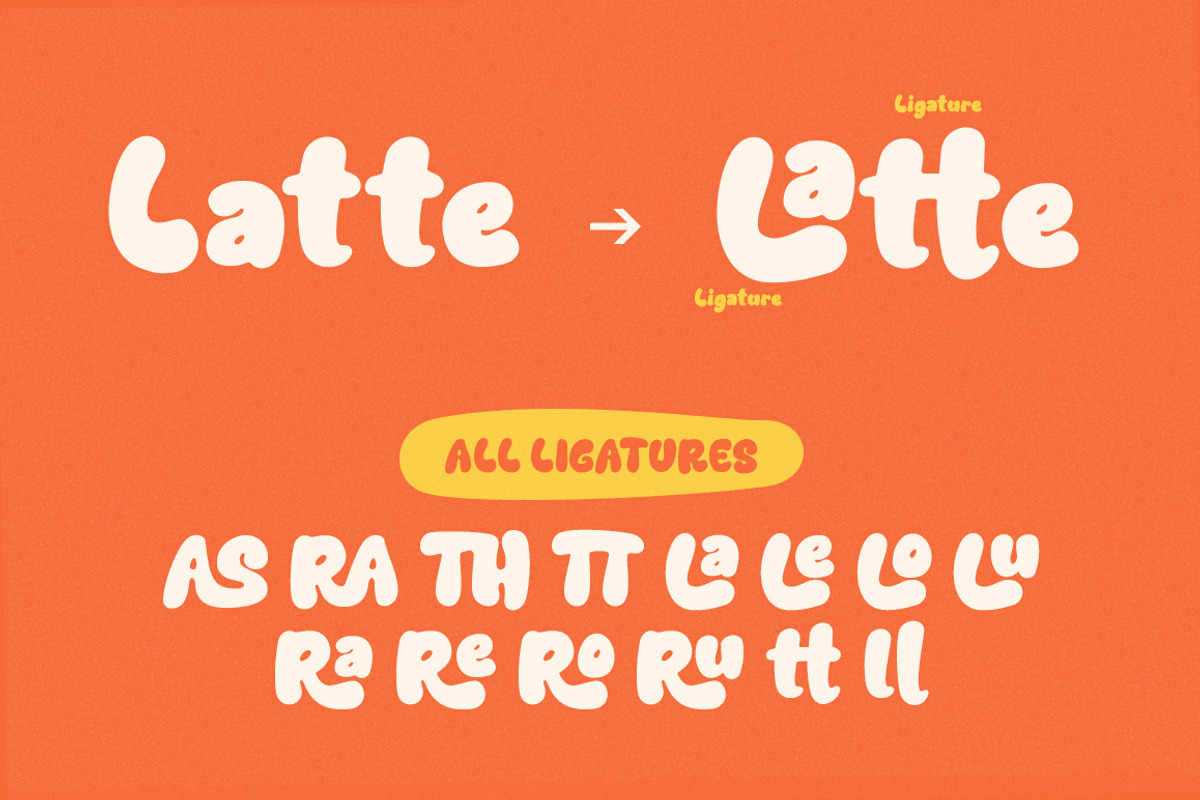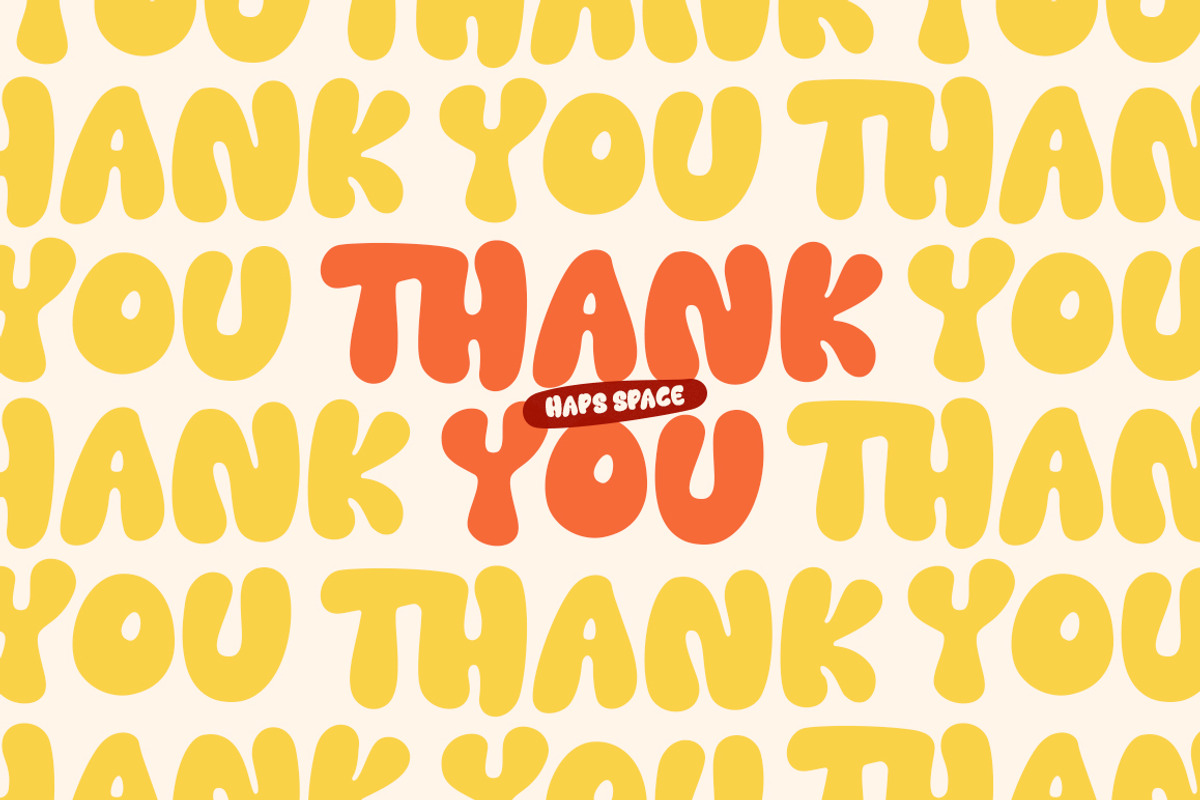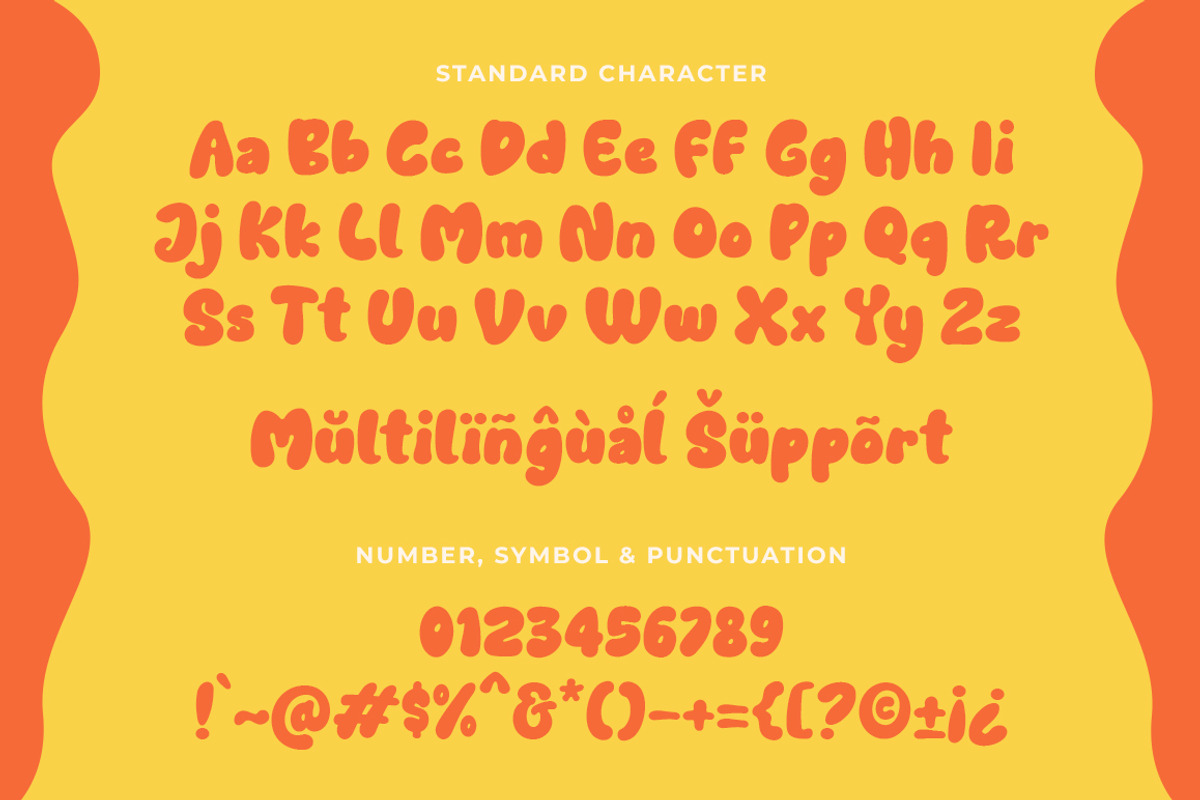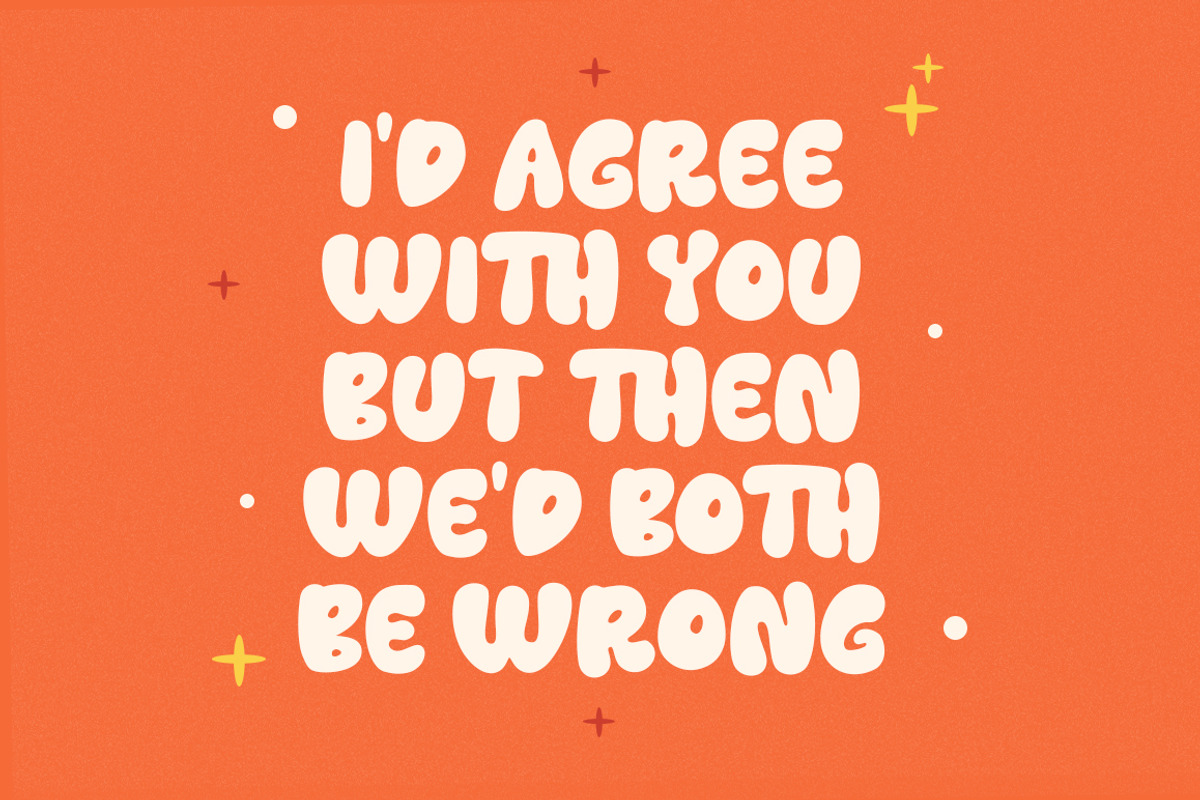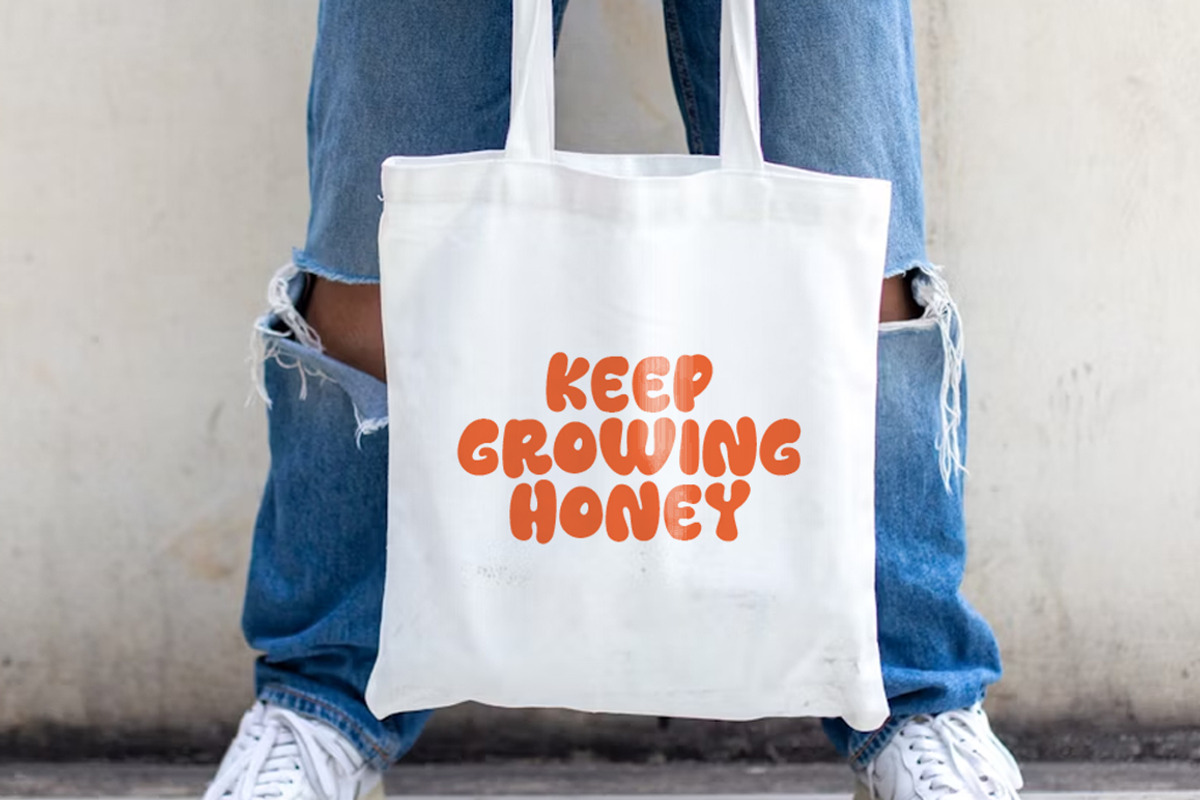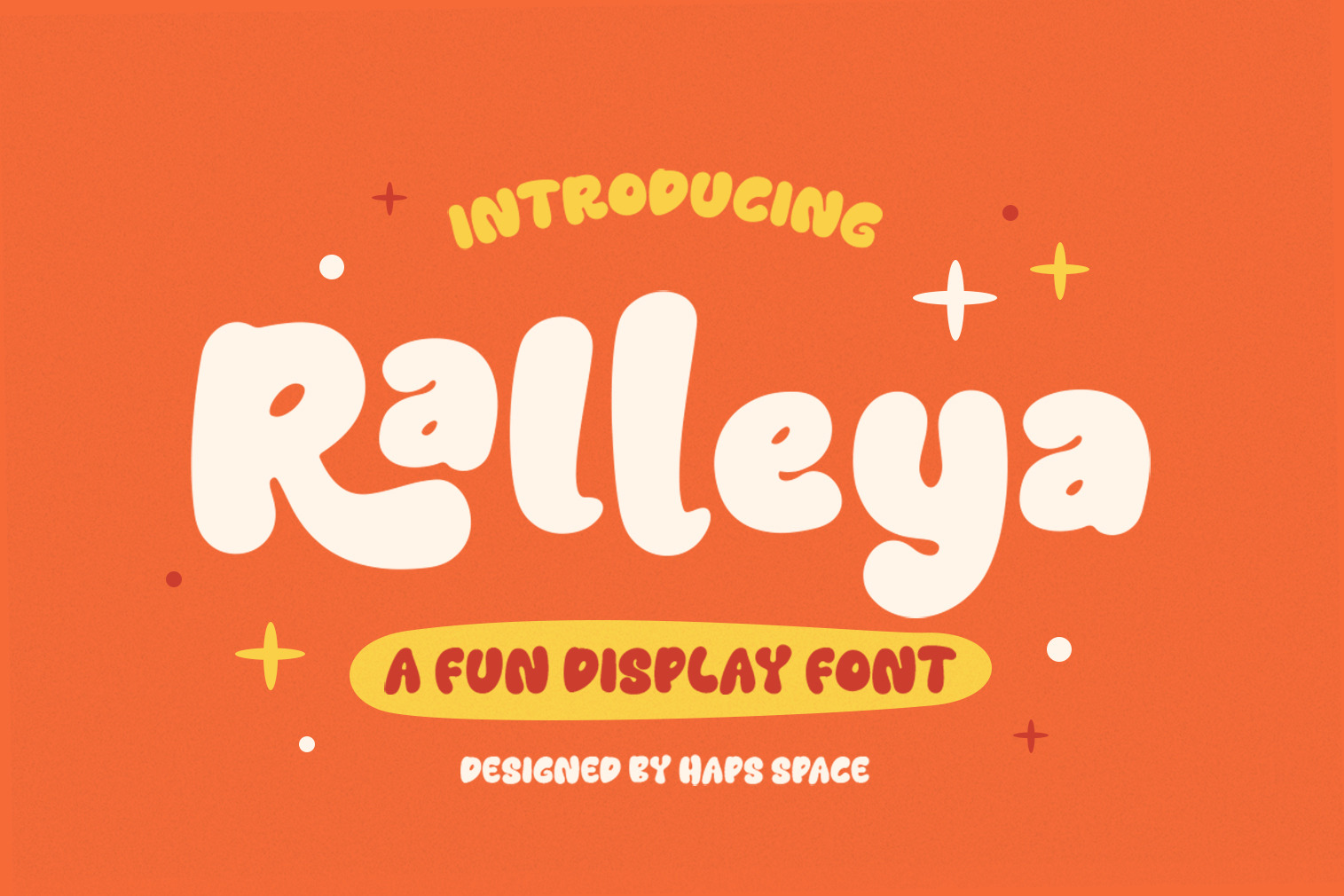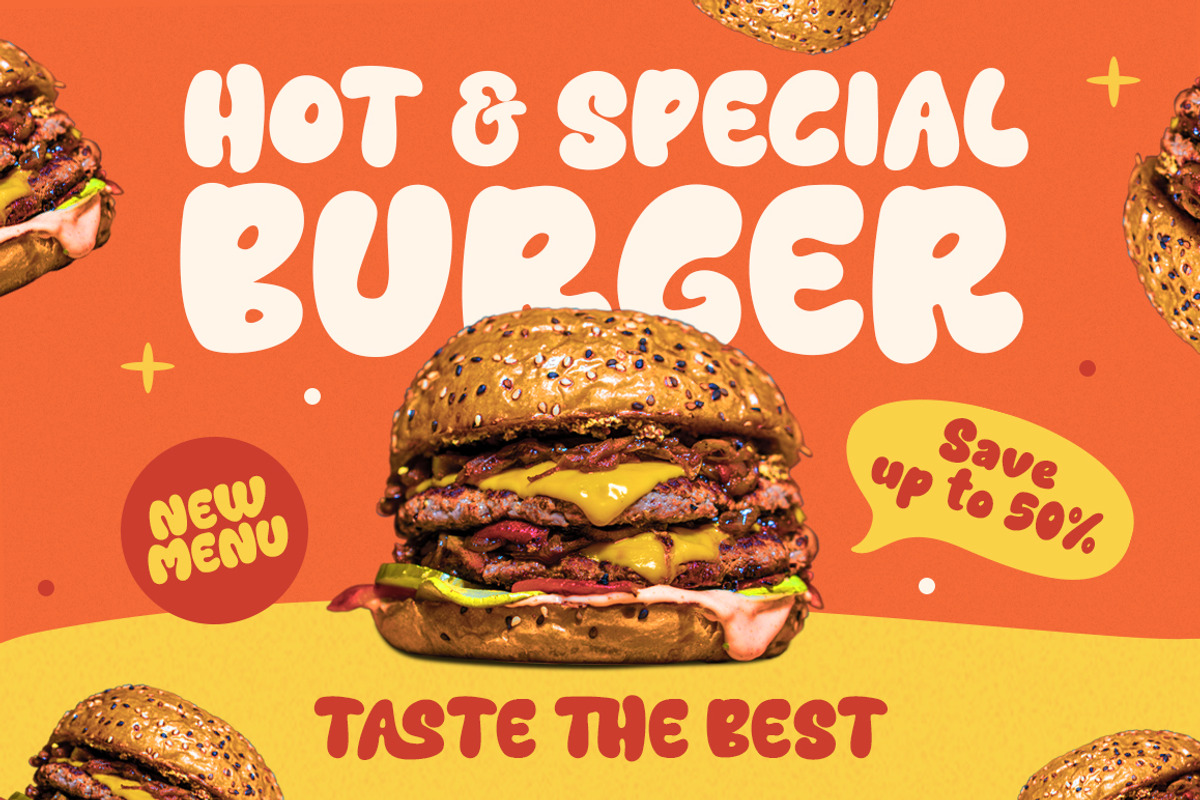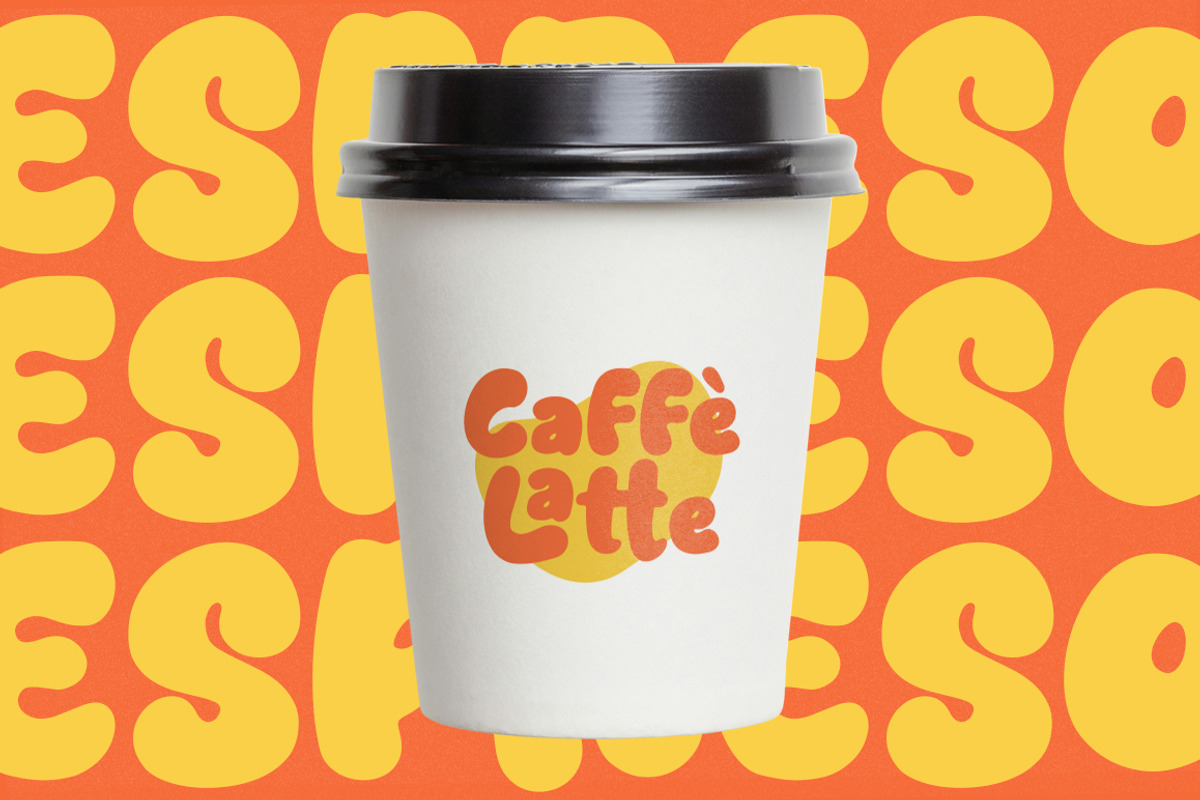
Ralleya Fun Display Font
Ralleya is a bold and bouncy display font that brings cheerful energy to your creative projects. With its playful curves, chunky forms, and cartoonish vibe, Ralleyya is perfect for kids-themed designs, packaging, fun logos, posters, and anything that needs a dose of happiness.
This all-uppercase font is super versatile and easy to use, with smooth readability and a joyful aesthetic that stands out in any design. Whether you're working on branding or birthday invitations, Ralleyya will make your message pop with personality.
- Kids design projects
- Toys and games branding
- Birthday cards
- Posters and flyers
- Social media graphics
- Merchandise & apparel